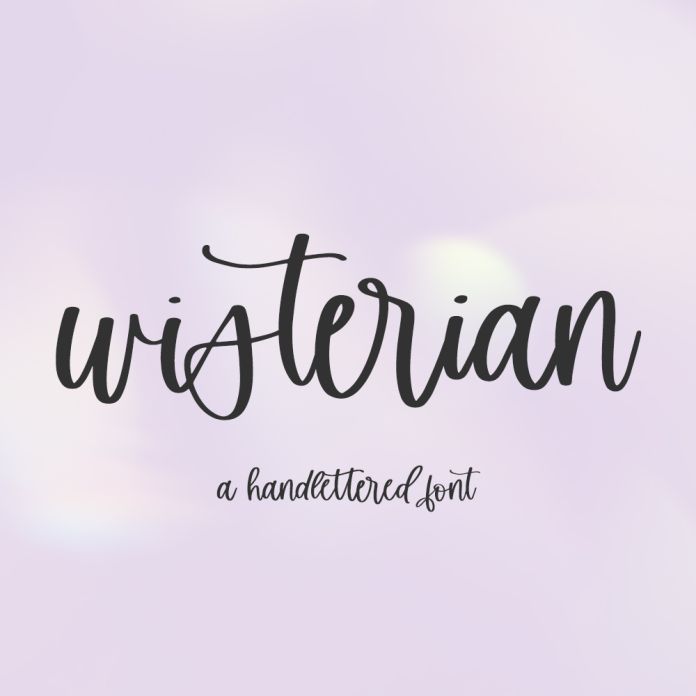
Wisterian Script Font
Introducing Wisterian, a handlettered modern calligraphy font with alternates & ligatures. Wisterian is best for: - feminine, crafty projects with your Silhouette machine, or your SVG design business - whimsical farmhouse decor and crafts - logos + branding - website design + website accents, blog design - quote graphics for social media - feminine graphic tee shirt design & other apparel Wisterian includes: - full upper + lowercase characters - numbers + punctuation - Western European Language Support - 28 alternate characters - 37 ligatures - ar, as, bs, cs, ds, er, es, ex, fs, gs, hs, in, ir, is (x2, standard & discretionary), js, ks, ls, mm, ms, nn, ns, or, os, ps, qa, rs, ss, ts, tt, ur, us, vs, ws, xs, ys, zs - PUA-encoding